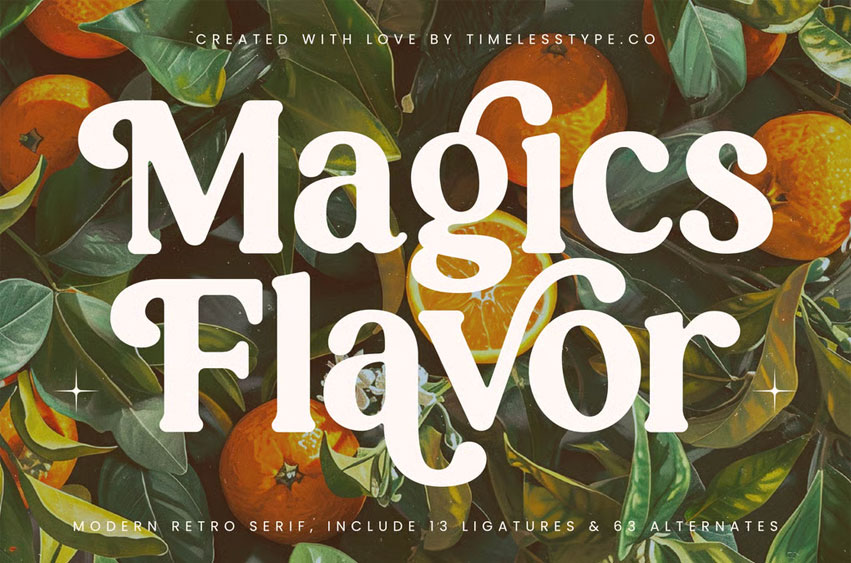
Magics Flavor Font is a modern retro serif font that captures the essence of vintage charm and contemporary creativity. Featuring 13 ligatures and 63 alternates, this typeface delivers bold personality and smooth curves, making it perfect for branding, packaging, posters, and lifestyle design projects.
Inspired by nostalgic typography from the 1970s with a fresh modern twist, Magics Flavor blends soft edges and confident forms to create a versatile and captivating look. Ideal for designers who want to add warmth, elegance, and character to their work.